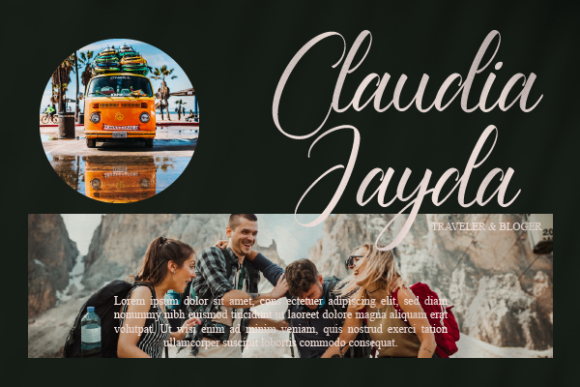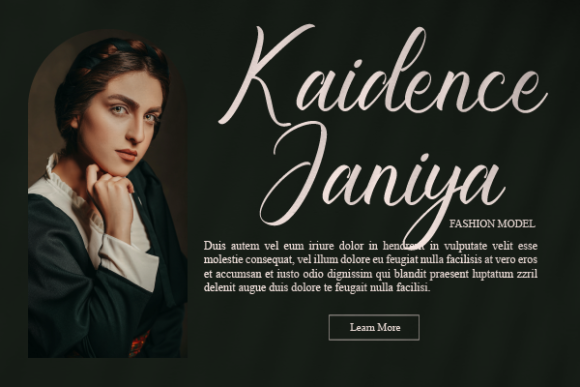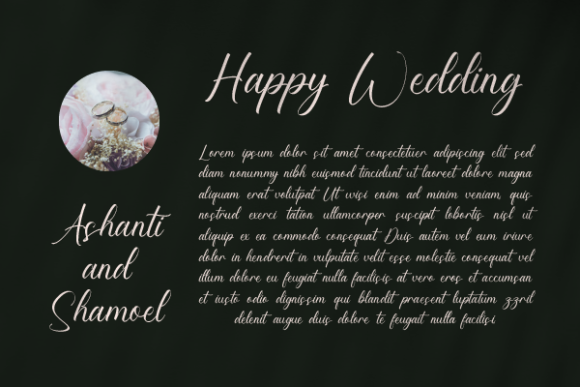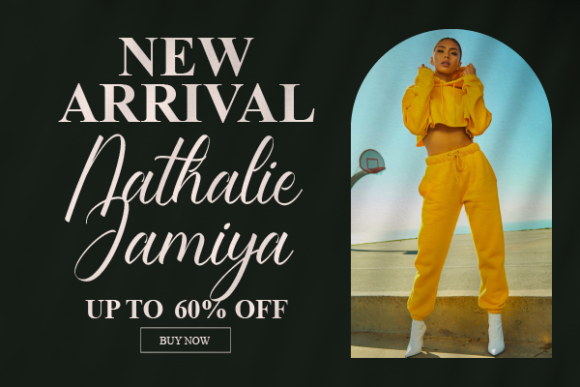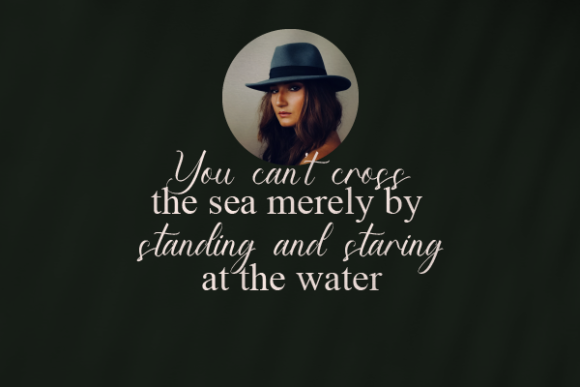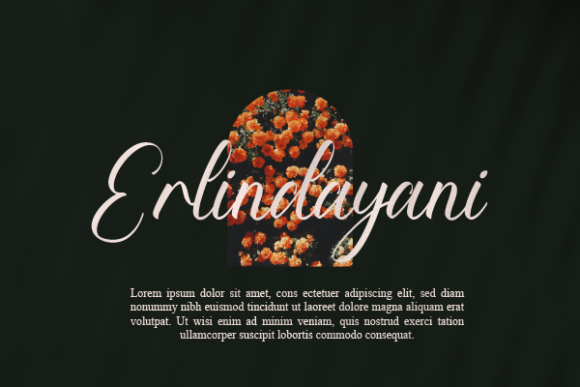
Introducing Giovany Chelsea Font: Elevate Your Designs with Elegance
In the world of typography, a well-chosen font can make all the difference in elevating your design from ordinary to extraordinary. For designers and crafters seeking a unique and sophisticated touch, Giovany Chelsea Font is an exceptional choice. This slim and delicate handwritten font is designed to make your work stand out through its elegant and curvy lines, perfect for a variety of creative projects.
What Makes Giovany Chelsea Font Special?
Giovany Chelsea Font boasts a distinctive, handcrafted aesthetic that sets it apart from more traditional fonts. Its slim and delicate appearance lends an air of sophistication and refinement, making it an ideal choice for projects where elegance is paramount. The font’s curvy lines add a touch of whimsy and softness, ensuring that your designs are not only professional but also visually appealing.
One of the key benefits of Giovany Chelsea Font is its versatility. Its elegant appearance makes it suitable for a wide range of applications, including:
- Product Packaging: Add a touch of luxury to your product packaging with a font that exudes sophistication and style.
- Branding Projects: Establish your brand’s identity with a unique and memorable font that sets you apart from the competition.
- Magazine Covers: Create eye-catching magazine covers that draw readers in with the font’s elegant and curvy lines.
- Social Media: Elevate your social media presence with stylish and engaging text that captures your audience’s attention.
- Wedding Designs: Add a romantic and whimsical touch to your wedding designs, from invitations to decorations.
Why Choose Giovany Chelsea Font?
For designers and crafters looking for a font that offers both style and flexibility, Giovany Chelsea Font is an excellent choice. Here are just a few reasons why:
- Elegant and Curvy Lines: The font’s distinctive lines add a touch of sophistication and whimsy to any design.
- Versatile: Suitable for a wide range of projects, from product packaging to wedding designs.
- Easy to Read: Despite its delicate appearance, Giovany Chelsea Font remains clear and easy to read, making it perfect for both headings and body text.
- Unique: Stand out from the crowd with a font that is both distinctive and memorable.
Tips for Using Giovany Chelsea Font
To get the most out of Giovany Chelsea Font, consider the following tips:
- Pair with Contrasting Fonts: Combine Giovany Chelsea Font with a more traditional or bold font to create visual interest and hierarchy.
- Use for Headings and Titles: The font’s elegant lines make it perfect for headings and titles, where it can add a touch of sophistication.
- Experiment with Colors: Giovany Chelsea Font looks stunning in a variety of colors, from soft pastels to rich jewel tones.
Giovany Chelsea Font is a beautiful and versatile handwritten font that can elevate your designs to new heights. Its elegant and curvy lines make it perfect for a wide range of projects, from product packaging to wedding designs. With its unique aesthetic and ease of use, Giovany Chelsea Font is an excellent choice for designers and crafters looking to add a touch of sophistication and whimsy to their work.